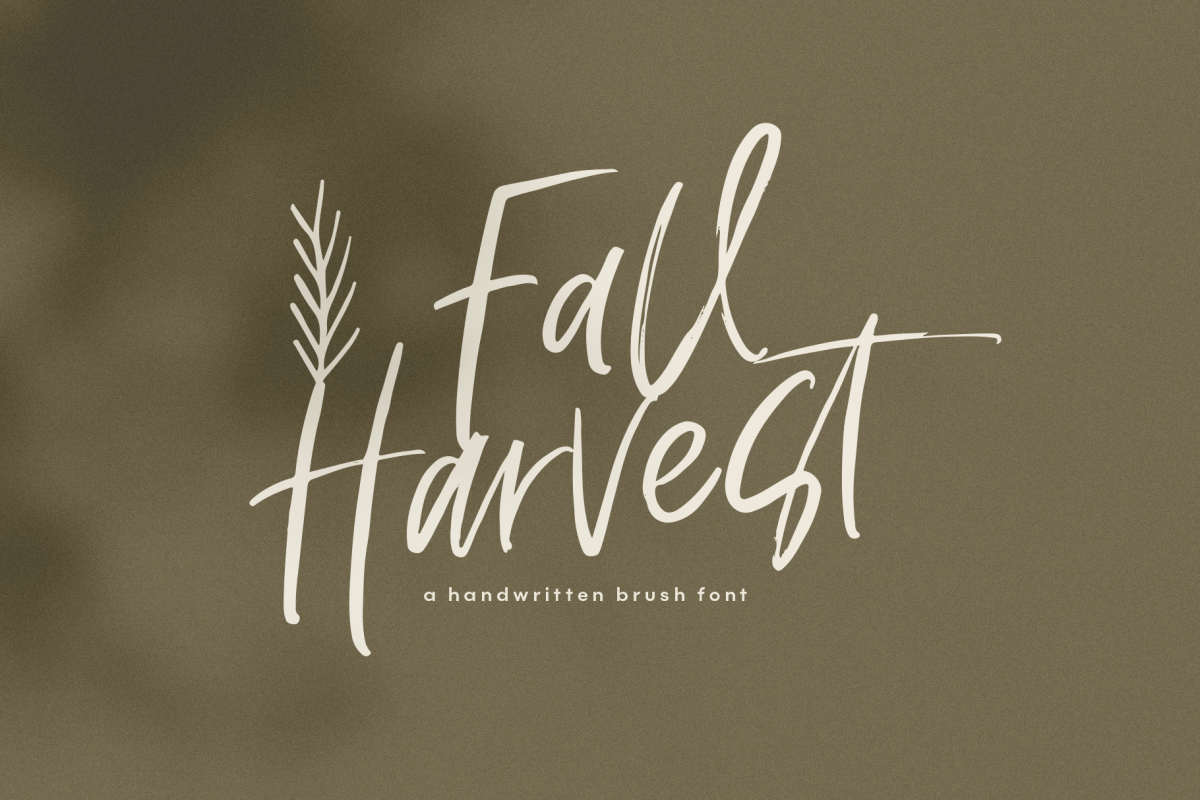
Fall Harvest - A Handwritten Script Font with extras!
Fall Harvest is a handwritten script font with a brushed look!
There is also a set of complimentary fall doodles included in the form of a font (use A-Z).
Fall Harvest is perfect for modern projects, headings, blogs, logos, brandings, invitations and more!
Most accent characters are included.